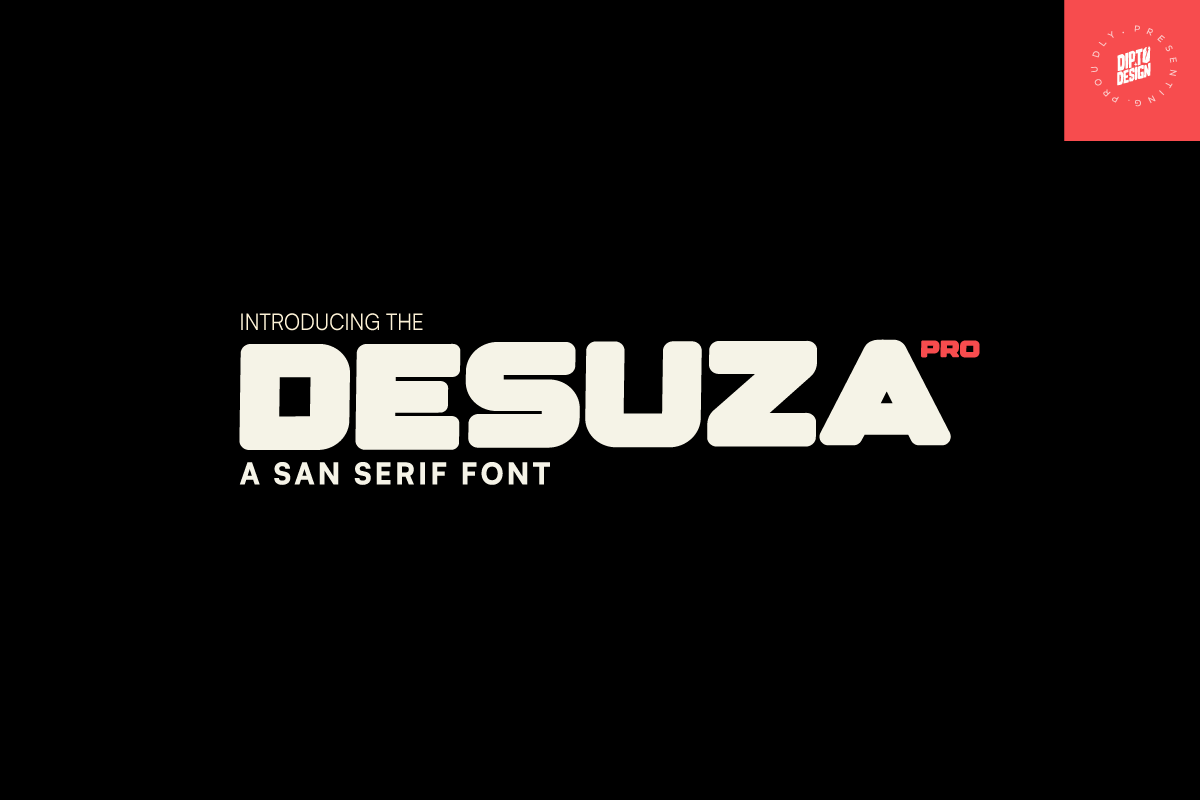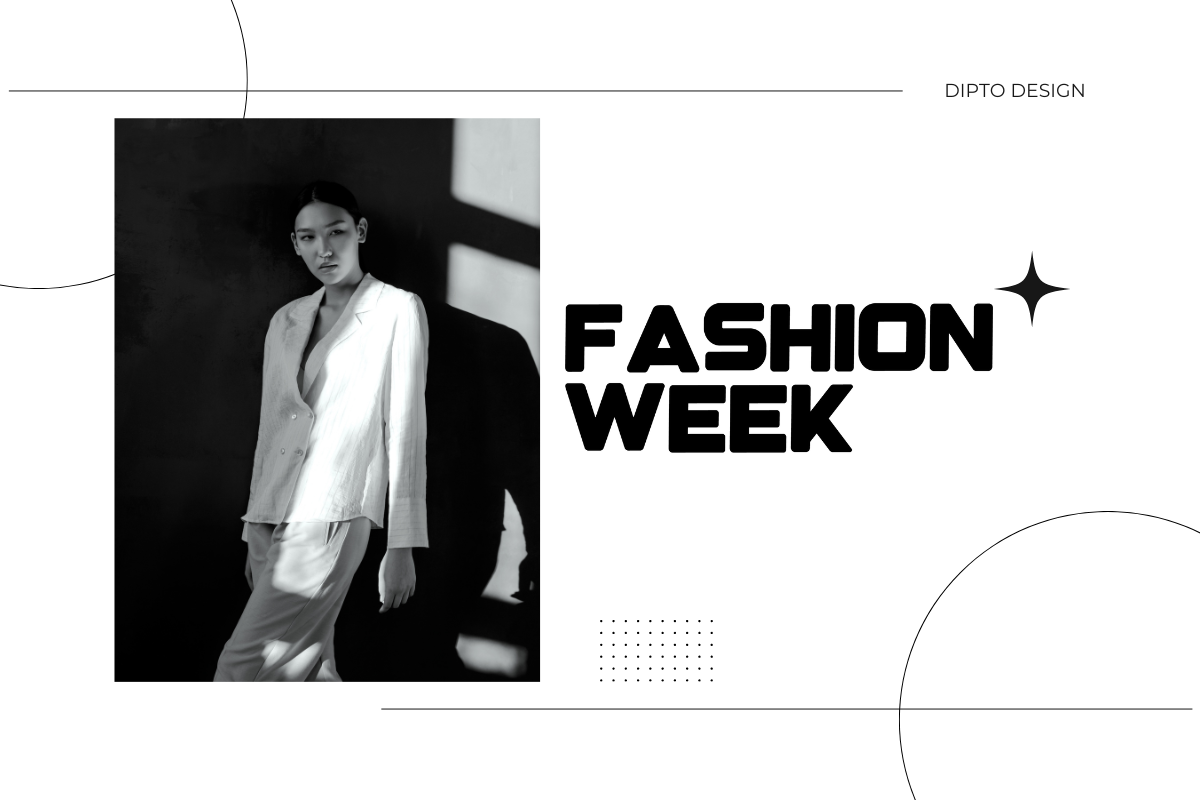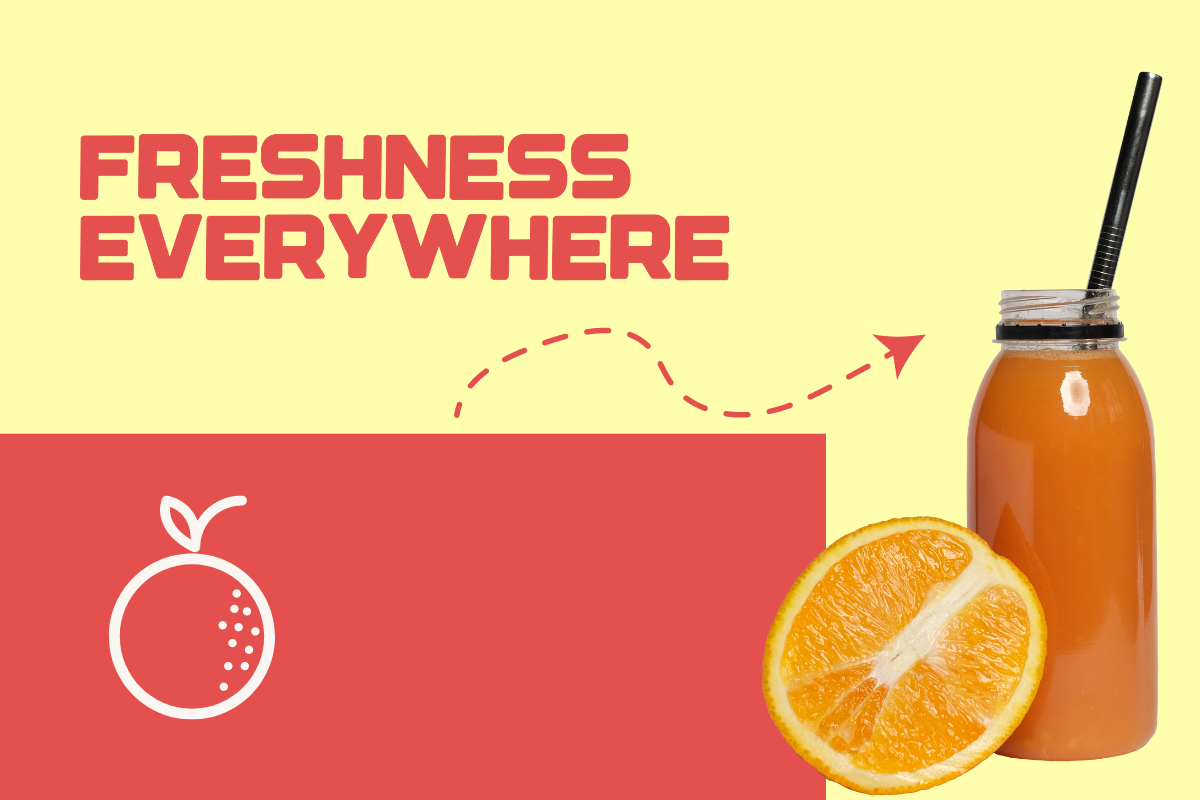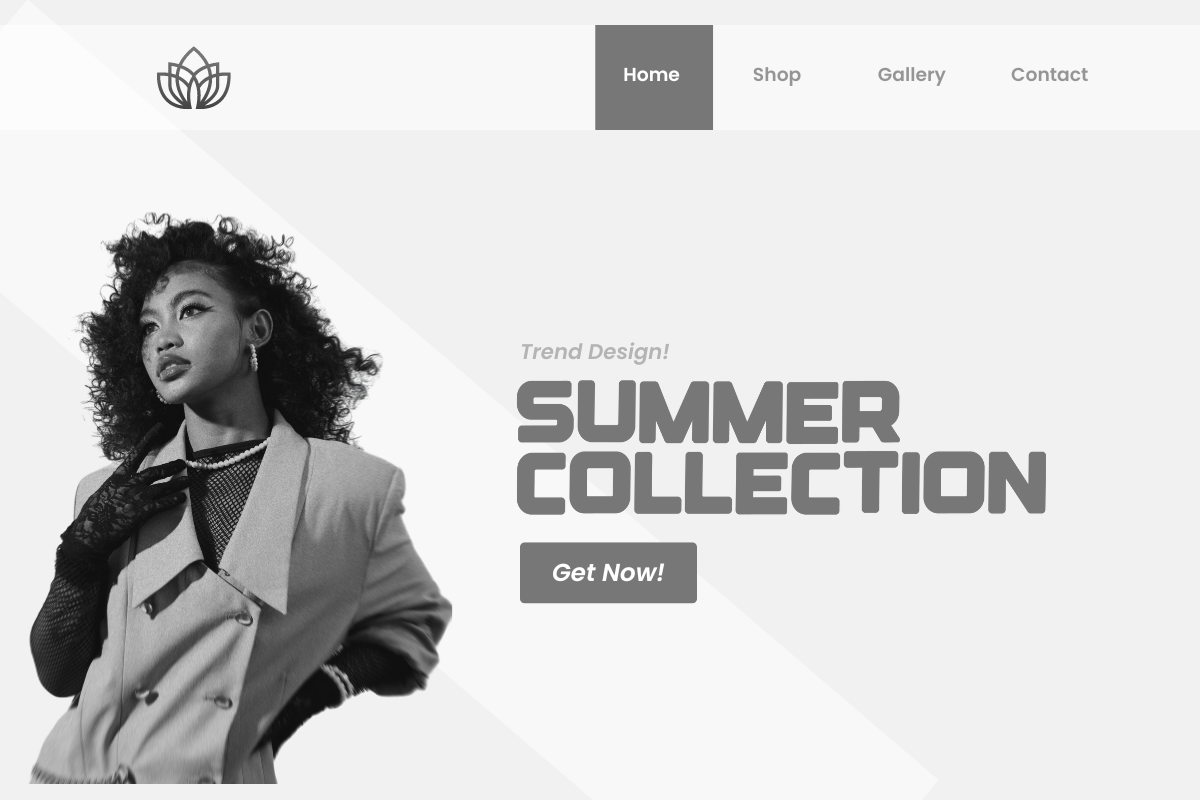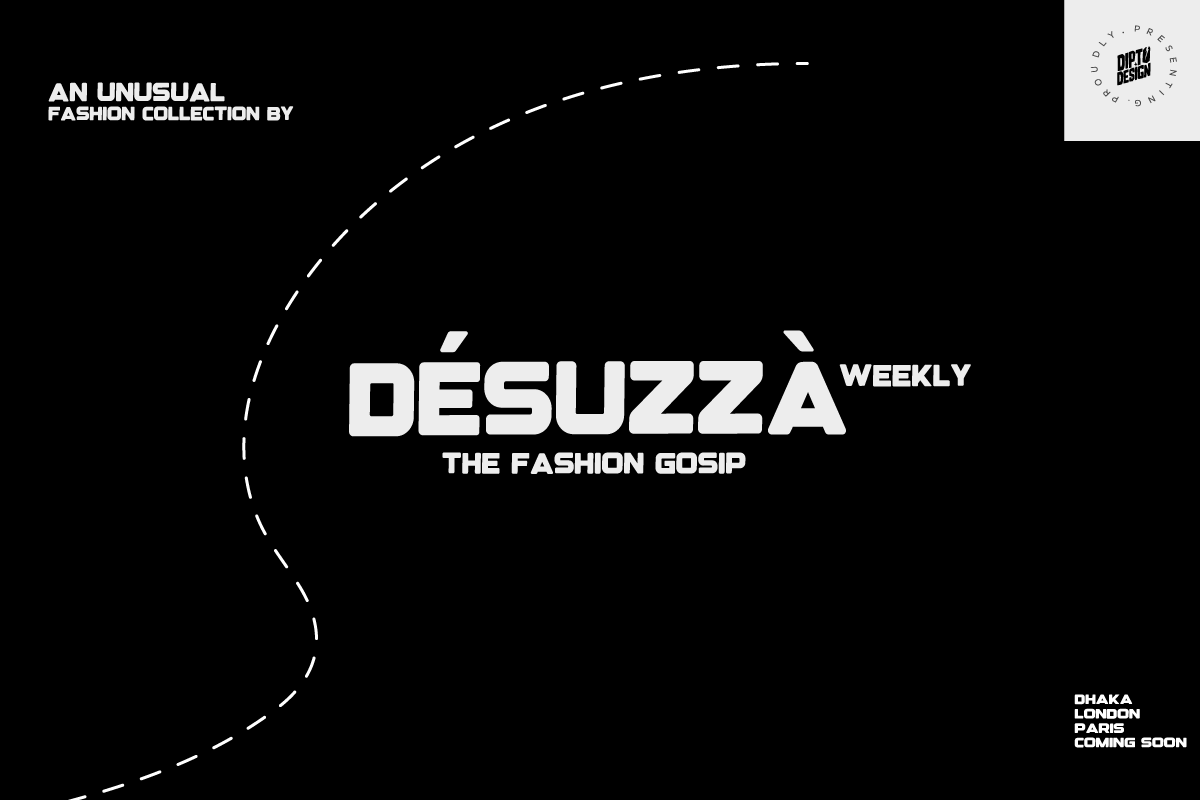
DesuzaPro- A Sans Serif Font
DesuzaPro isn't for the faint of heart. It's a bold, sans-serif font designed to make a statement. Its thick strokes and unwavering presence exude confidence and authority, perfect for brands that demand to be seen and heard.
Imagine headlines that leap off the page. Envision posters that stop viewers in their tracks. DesuzaPro doesn't blend in; it cuts through the noise with its powerful presence.
Language Support • Afrikaans, Albanian, Asu, Basque, Bemba, Bena, Breton, Catalan, Chiga, Cornish, Danish, Dutch, English,Estonian,Filipino,Finnish,French,Friulian,Galician,German,Gusii,Indonesian, Irish, Italian,Kabuverdianu, Kalenjin, Kinyarwanda, Luo, Luxembourgish, Luyia,Machame, Makhuwa-Meetto,Makonde,Malagasy, Manx,Morisyen, North Ndebele, Norwegian Bokmål, Norwegian Nynorsk, Nyankole, Oromo, Portuguese,Quechua,Romansh, Rombo, Rundi, Rwa, Samburu,Sango, Sangu, Scottish Gaelic, Sena, Shambala, Shona,Soga, Somali,Spanish,Swahili,Swedish, Swiss German, Taita,Teso, Uzbek (Latin),Volapük, Vunjo,Zulu
- Uppercase and Lowercase : Regular,italic
- Punctuation and Marks
- 550+ glyphs
- Symbols and accented letters